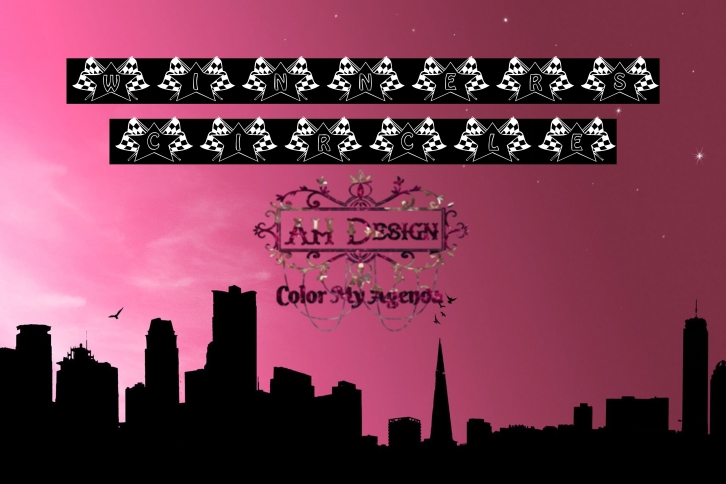
Winners Circle is an ornate and decorative font. Whether you need to use it for cartoon-related designs, planners and journals, cards, invitations, or just anything that you want to add a unique and interesting touch, this font will be an interesting and amazing choice! Add it to your most creative ideas, and notice how it makes them come alive!